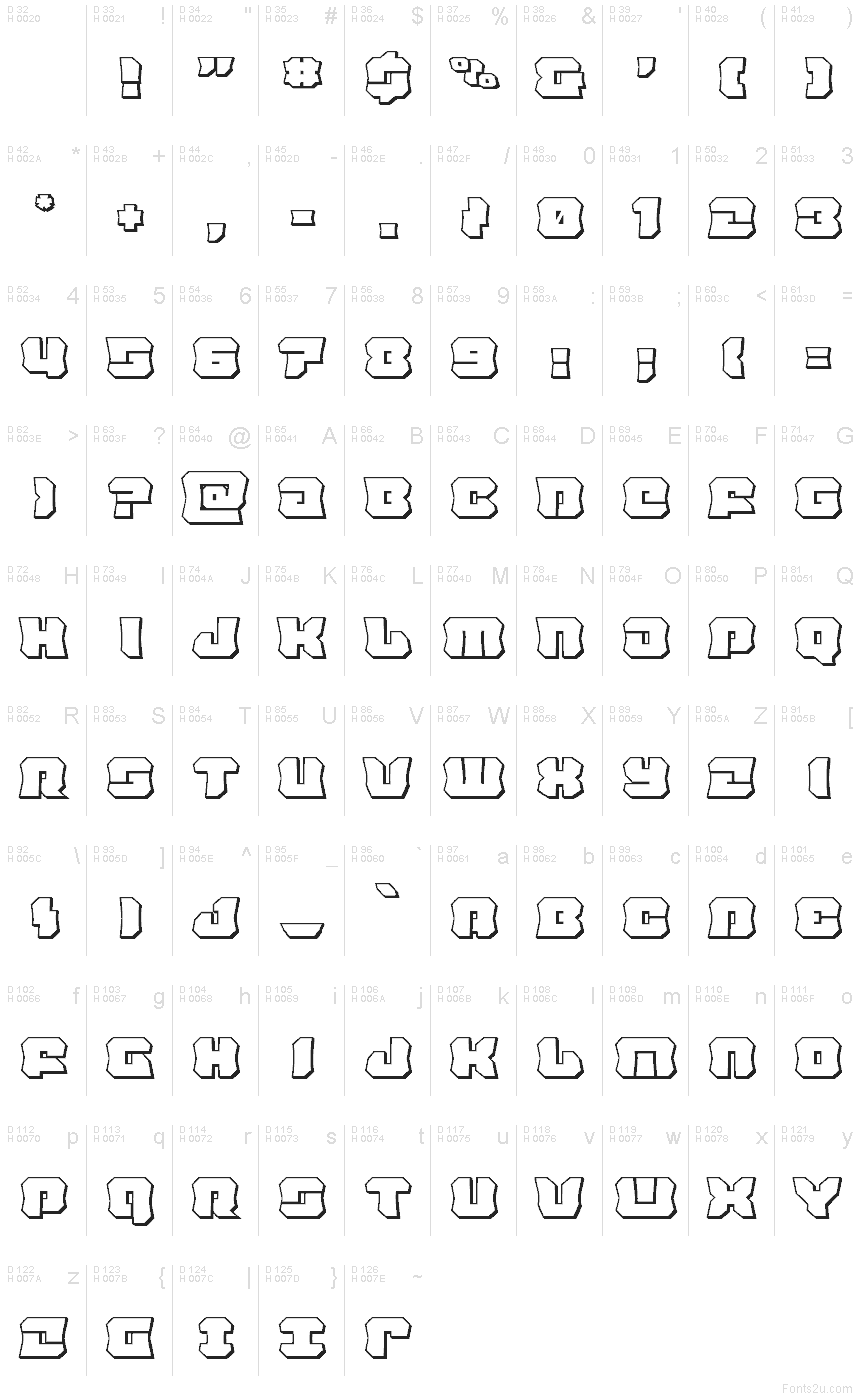
Krieger Bell 3D
Krieger Bell 3D font by Iconian Fonts is a free 3D techno display typeface with a thick, bubbly outline that feels both mechanical and playful. Its blocky curves, beveled edges, and hollow interior give every word a sculpted, toy-like depth, as if the letters were molded plastic popping off the screen. Despite the chunky forms, the rhythm stays consistent, so you get that bold, arcade-energy look without sacrificing legibility at larger sizes.
Using Krieger Bell 3D in your layouts instantly says “retro-futuristic,” making this free font a natural fit for gaming logos, sci‑fi posters, esports branding, stream overlays, stickers, and bold event titles. It shines when you crank it up large and let the 3D contour do the heavy lifting, while pairing it with a clean, geometric sans serif for body text keeps the design fresh and readable.